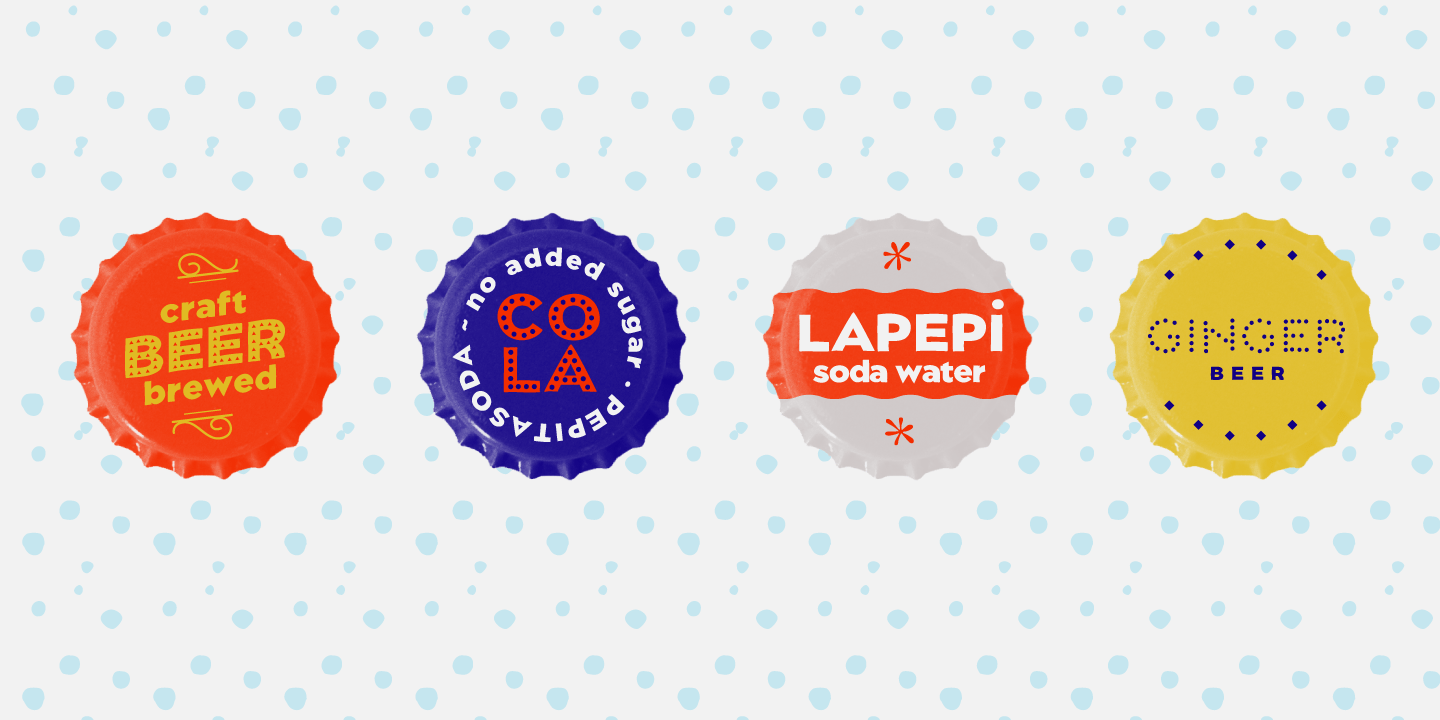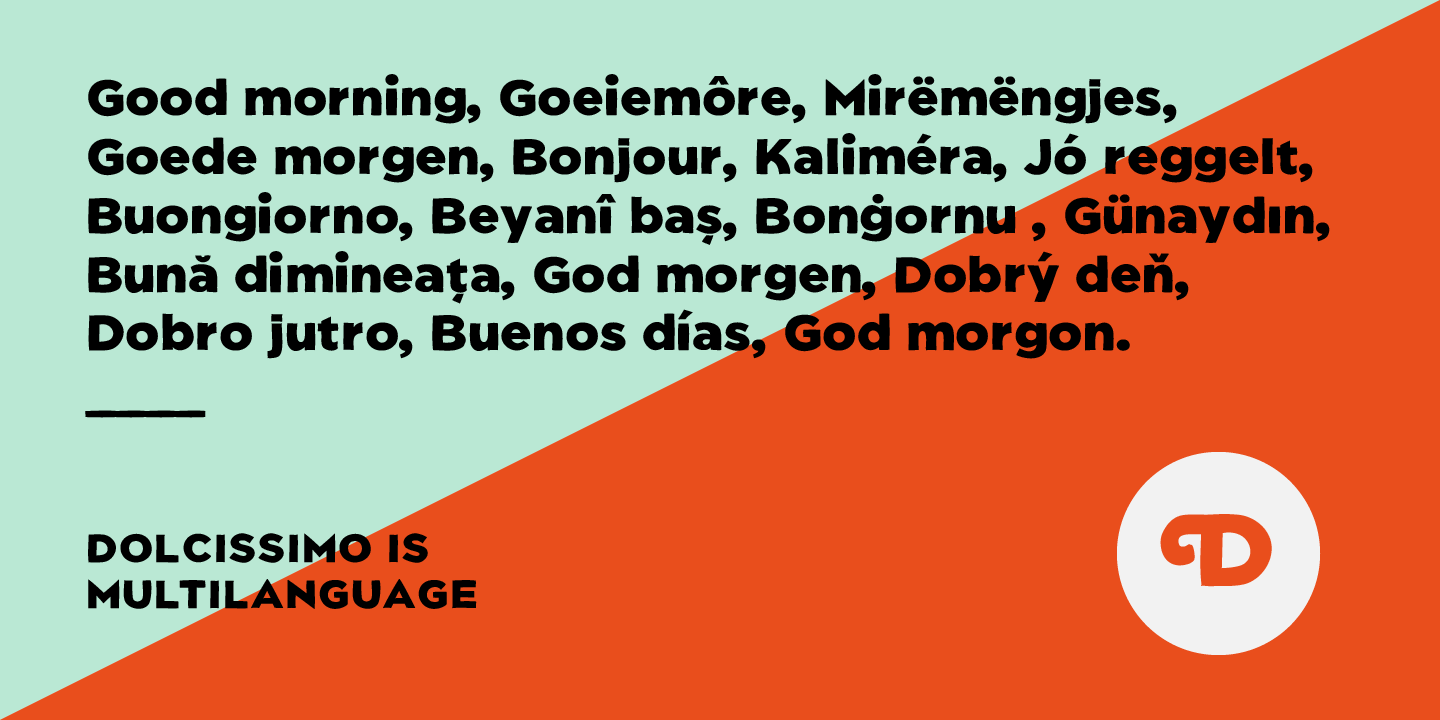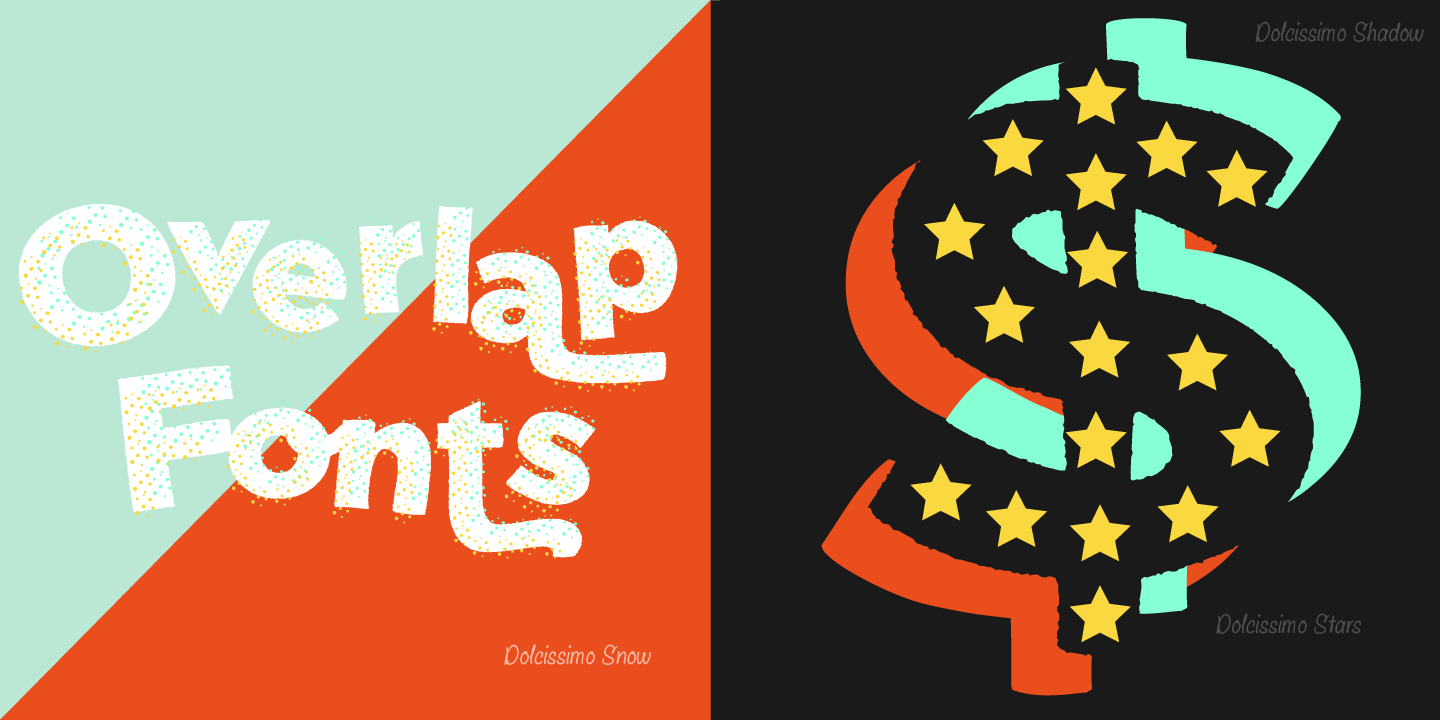
Dolcissimo is a sans serif typeface with a geometric skeleton that has been built drawn by hand which makes it a friendly typeface. This font has more than 20 decorative styles, that can be overlapped, because Dolcissimo is a layered font. We highly…